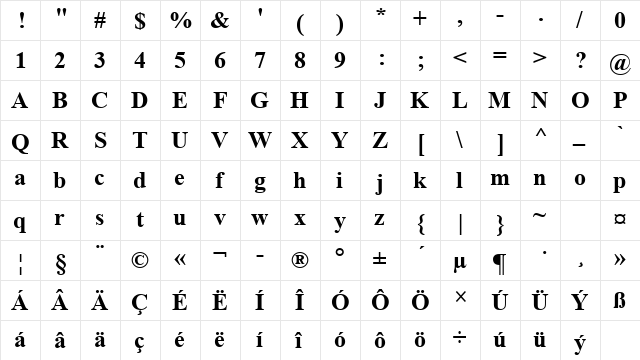
Times New Roman CE Bold
Design Context for Times New Roman CE Typeface
Times New Roman CE offers clean, dependable letterforms without strong stylistic allegiance, making it a practical choice for designers who need flexibility. Its bold stroke weight gives it real presence on the page.